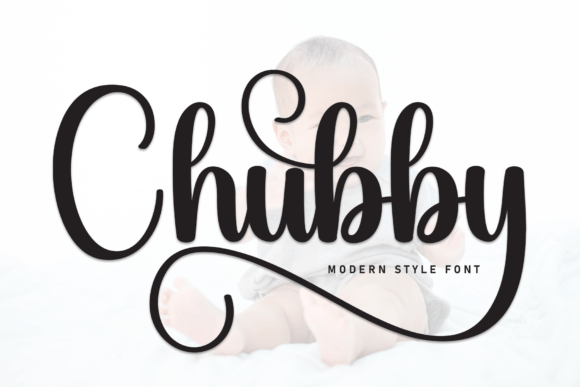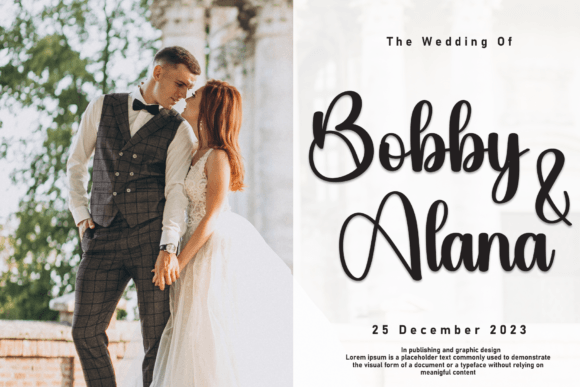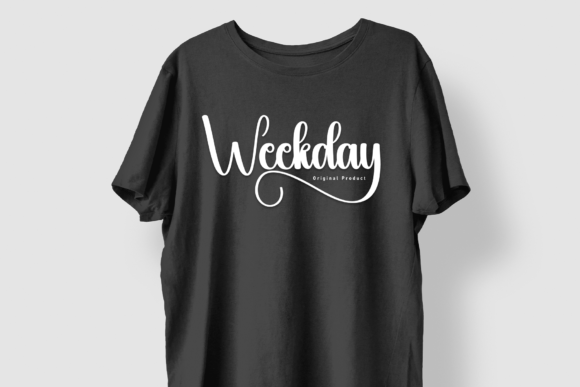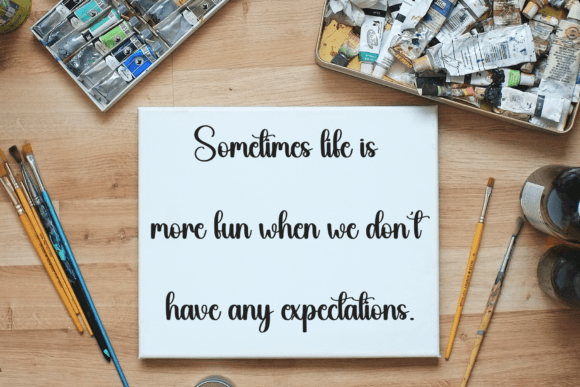
About the Chubby Font
Add a touch of class to your work with the Chubby Font, a truly exceptional typeface. Chubby is a sweet and friendly handwritten font. Its natural and unique style makes it incredibly fitting to a large pool of designs. The only limit is your imagination.
Chubby Font Usage Examples